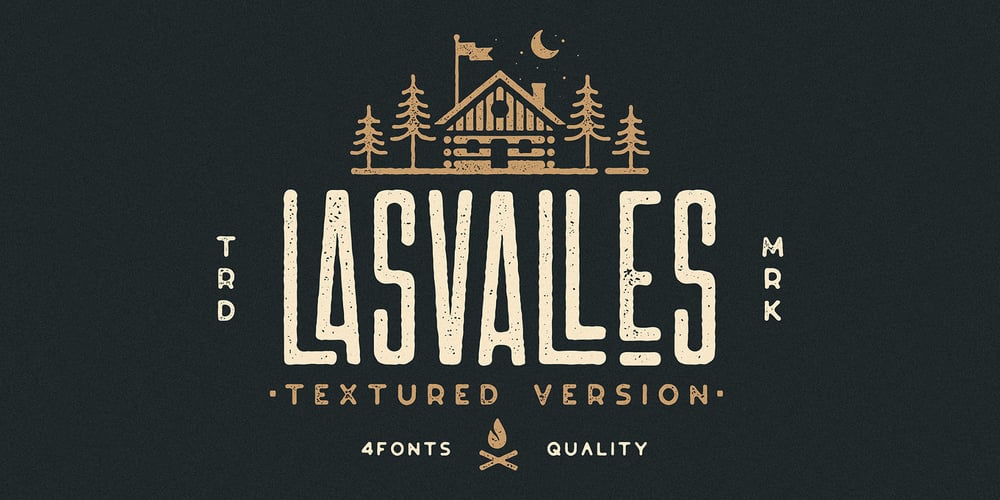
Las Valles Textured Font Family was designed by Kurt Harahap and published by Kaligra.co. Las Valles Textured contains 4 styles and family package options. Las Valles Textured is a tall, ultra-condensed sans serif font offered in 4 styles. Combining vintage charm with modern appeal, it boasts unique ligatures and versatile choices. The mix of rounded and regular styles adds a fresh touch. Particularly suitable for headlines, quotes, logos, web, and print design, including magazine covers, posters, and signage.